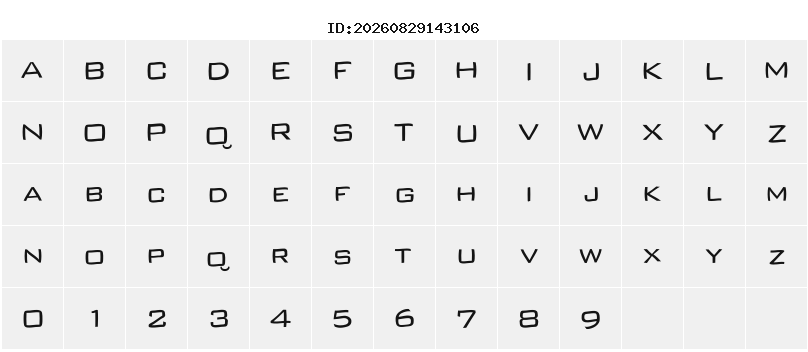
• Font Name: TheBroadWay
• Font ID: TheBroadWay
• Full Font Name: TheBroadWay
• PostScript Name: TheBroadWay
• Character Count: 245
About TheBroadWay.ttf
TheBroadWay.ttf is a modern, elegant sans-serif font designed for ultimate readability and visual harmony. Perfect for branding, headlines, web design, and print materials.